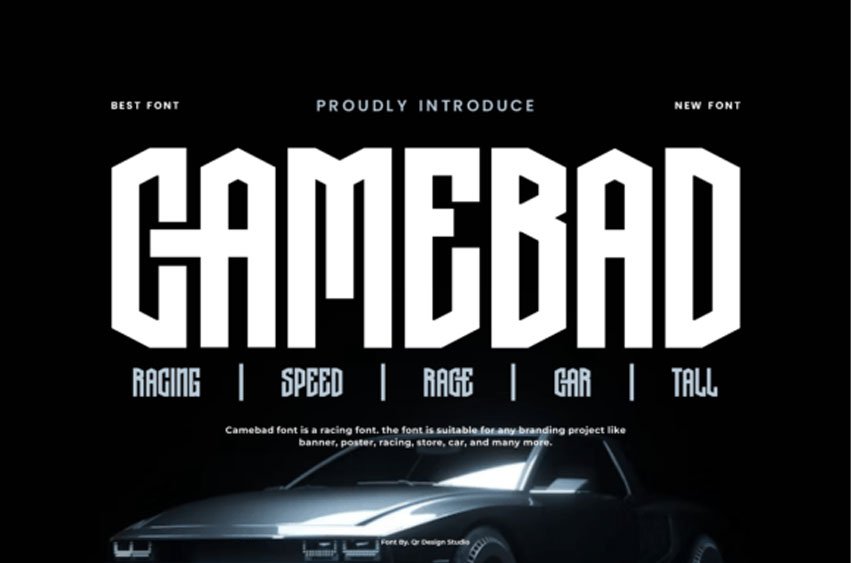
Camebad Font is a bold, modern racing typeface built for speed, power, and adrenaline. With its tall, angular letters and strong geometric design, this display font captures the energy of fast cars, futuristic gaming, and high-impact branding.
Perfect for banners, posters, racing themes, esports logos, automotive projects, apparel, YouTube covers, Twitch overlays, and social media graphics, Camebad makes any design look fierce and unstoppable. Its sharp edges and bold presence make it ideal for titles, headlines, and branding where attention and strength are key.
Whether you’re working on a racing game, sports branding, automotive designs, or futuristic layouts, Camebad Font adds intensity and precision to your project. Get ready to fuel your creativity with this powerful racing-inspired font.